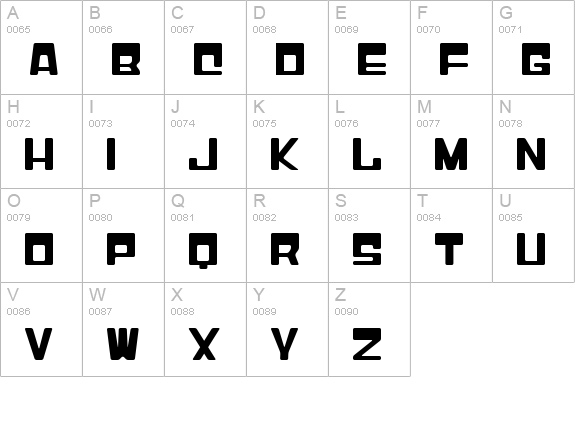
I2Macross E is a modern and versatile font that combines elegance with simplicity. This font is perfect for a wide range of design projects, from logos and branding to headlines and invitations. Its clean lines and balanced proportions make it easy to read, while its unique character shapes add a touch of creativity to any design. One of the standout features of I2Macross E is that it is available for free. Yes, you heard that right! This font is freely available to download at FontsMarket.com. Whether you are a professional designer or just starting out, this free font is a valuable addition to your toolkit. With I2Macross E, you can create stunning designs without breaking the bank. The free availability of this font means that you can use it in personal and commercial projects without any restrictions. Whether you are creating a website, designing a flyer, or crafting a social media post, I2Macross E is the perfect choice. So why wait? Head over to FontsMarket.com and download I2Macross E for free today. Enhance your designs with this beautiful and versatile font and let your creativity shine.